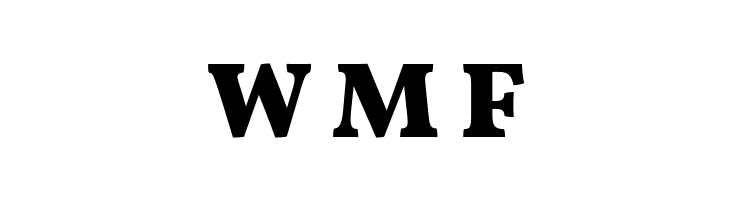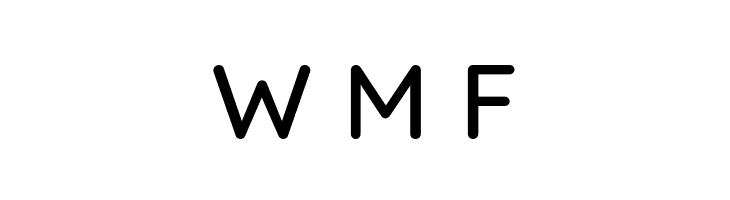
A bold, flowing script font with modern elegance and playful sophistication.
An elegant, extra-light italic serif font with high contrast and graceful slant.
A classic serif font with elegant, thin strokes and high contrast.
A bold, italicized font with a modern and elegant style.
A modern serif font with elegant, well-proportioned letterforms and clear numerals.
A refined, light, and elegant italic serif font with smooth curves and sharp serifs.
A bold serif font with a classic yet modern style, ideal for impactful designs.
A refined serif font with thin strokes and high contrast, exuding elegance.
A modern serif font with semi-bold weight and sharp serifs.
A sophisticated extra bold italic serif font with high contrast strokes.
A bold, high-contrast serif typeface with a modern yet classic appeal.
A semi-bold italic serif font with a refined and elegant style.
An elegant italic serif font with smooth curves and a classic style.
An elegant serif font with medium weight and italic style, offering a classic and sophisticated look.
A modern serif font with elegant, refined letterforms and medium contrast.
A medium-weight serif font with a balanced, modern classic style.
A versatile serif font with a blend of traditional and modern elements.
A bold serif typeface with dynamic strokes and elegant curvature.
A bold, italic serif font with dynamic movement and classic elegance.
A medium weight, italic serif font with elegant and refined characteristics.
A modern, geometric sans-serif font with clean and readable letterforms.
A modern, italic sans-serif font with clean lines and a professional appearance.
A classic serif font with elegant, well-balanced strokes.
A modern sans-serif font with clean, geometric letterforms.
A modern, semi-condensed bold italic font with clean lines and a dynamic style.
A bold, semi-condensed font with a modern and impactful style.
A sleek, semi-condensed, thin italic font with a modern and dynamic style.